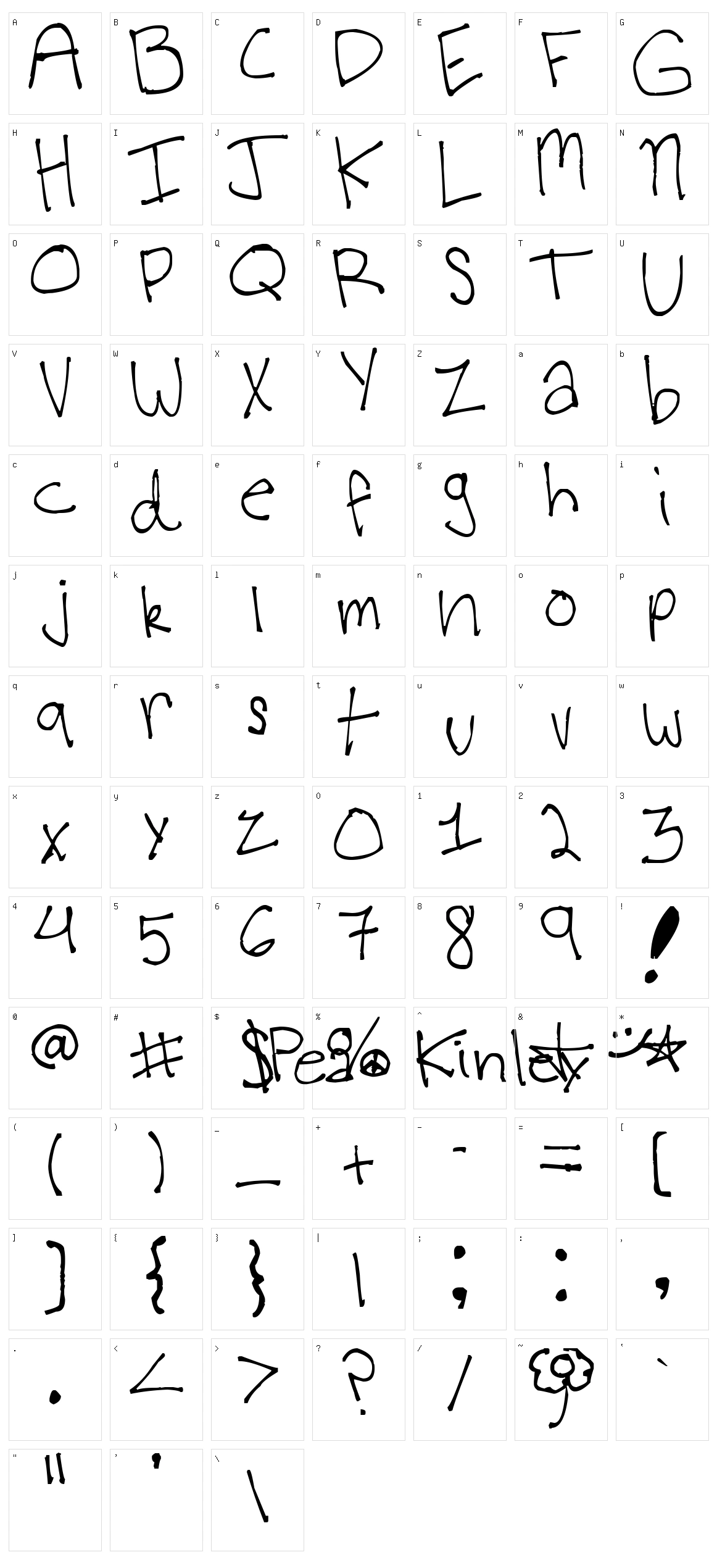
The free font Virginia's Kool Font is carefully designed by Virginia McDonald, showcasing a thoughtful balance of creativity and usability and falls under the Script font style. When you download the ZIP file, it contains only 21.89 KB of font files, making it lightweight and quick to download. Please review the license details below to understand permitted usage and distribution rights. If license information is not available, we recommend using this font for personal projects only or contacting the author directly for commercial usage permissions.